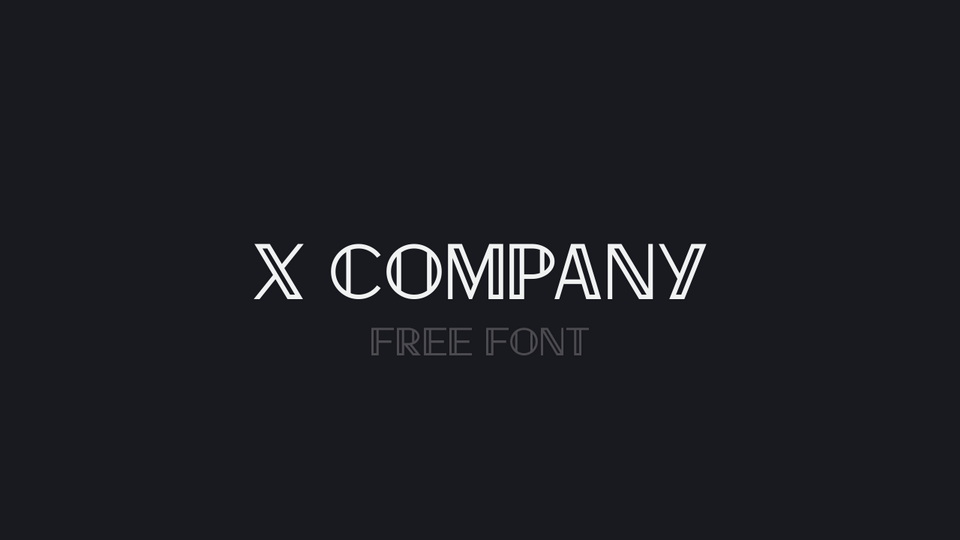
Download Company X font, a geometric display typeface inspired by the new Twitter logo. Company X font features sharp and precise lines that evoke the clean aesthetics of digital design and captures the essence of connectivity and digital interaction.